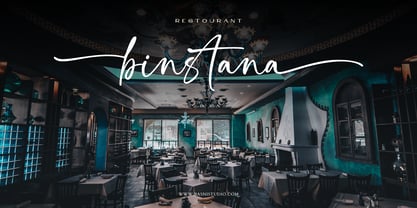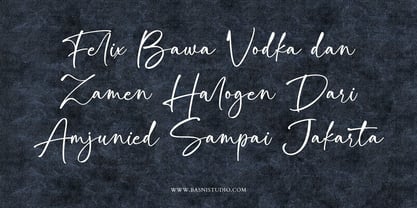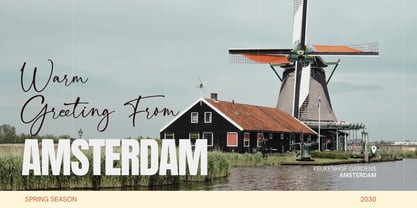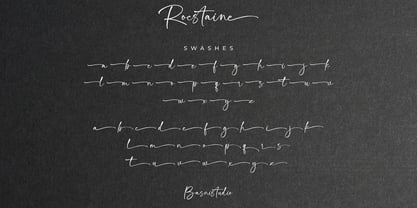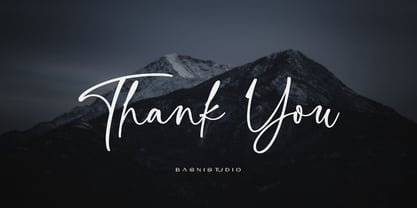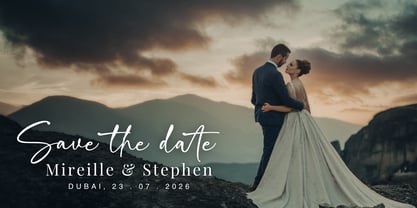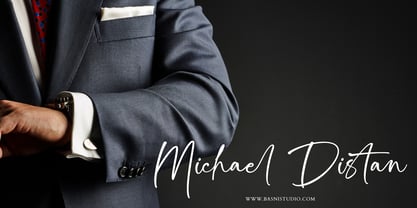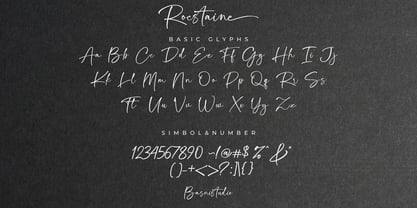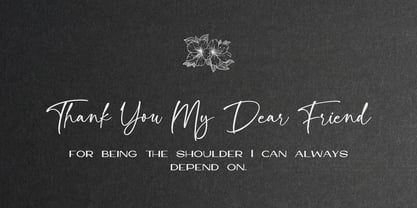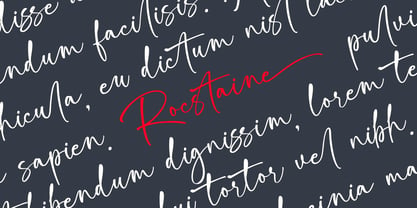
Rocstaine
by Basnistudio
The Rocstaine Font Family was designed by Bery Arisandi and published by Basnistudio. Rocstaine contains 1 styles. More about this family
Rocstaine – Casual Handwritten Font
Casual Handwritting Font Created with real pen strokes for a natural look and casual touch to everything from branding and social media to invitations and packaging.
Natural & Casual – Perfect for tagline, quotes, greeting cards, and more
Authentic Handwritten Feel – Created with real pen strokes for a natural look
Whether you’re building a powerful brand identity or crafting a standout design,
Rocstaine – Casual Handwritten Font Created with real pen strokes for a natural look gives you the creative edge you need.
What’s Included:
• Uppercase & lowercase letters
• Swashes
• ligatures
• Numbers & punctuation
• Multilingual Support ( Support for 90 languages )
Designers: Bery Arisandi
Foundry: Basnistudio